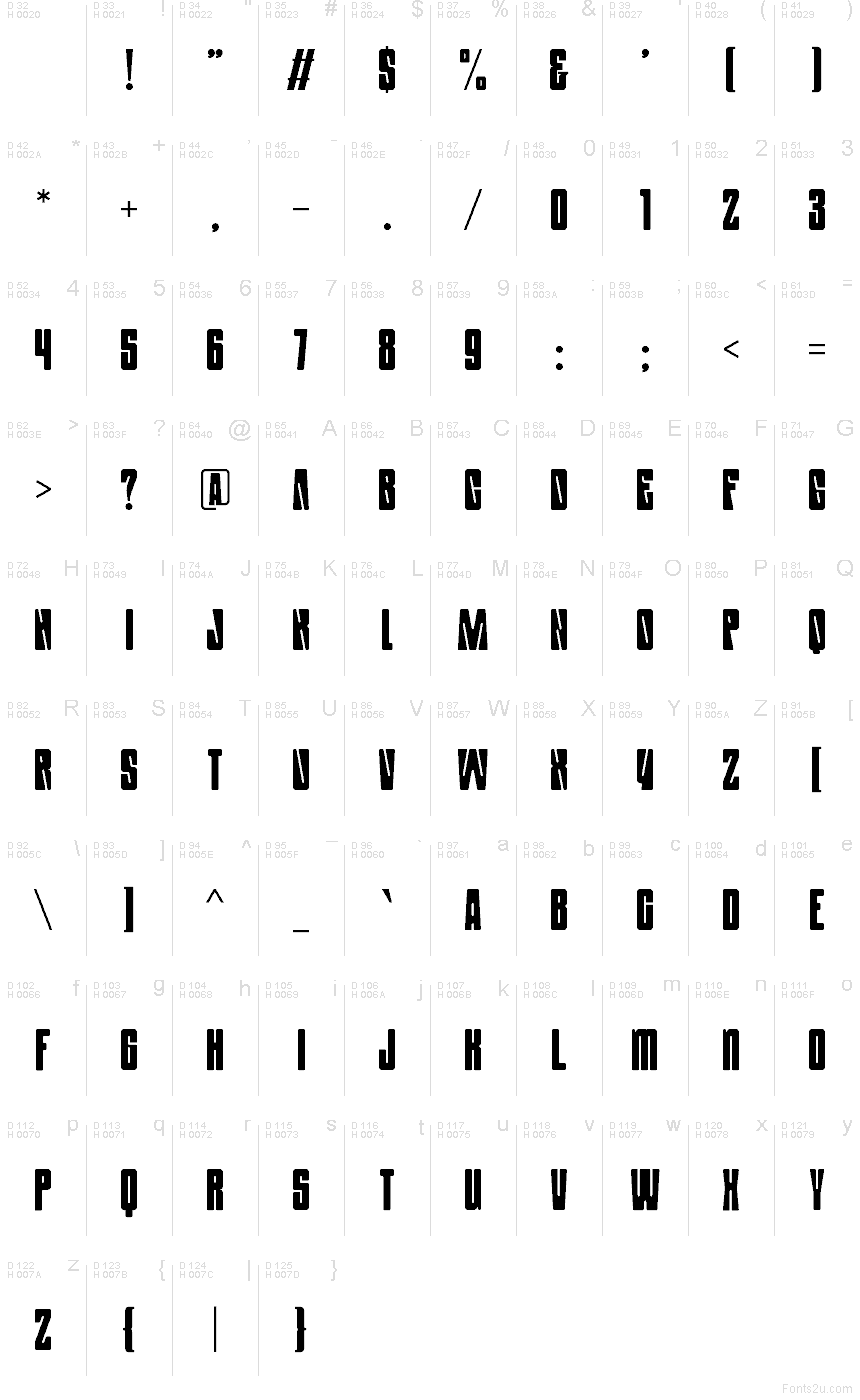
Palgea Regular
Palgea font by ErmediaStudio is a free decorative display typeface that feels like it’s been carved from a single, inky block. Heavy, tightly spaced letters rise tall and narrow, with soft curves and unexpected cutouts that give each word a bold, almost sculptural silhouette. The result is a chunky, high-impact look that still feels smooth to the touch—more like poured rubber or thick paint than cold geometry.
This free font thrives anywhere you need a headline to shout without shouting: gig posters, retro-themed branding, bold packaging, editorial titles, social media graphics, and statement logos. Using Palgea at large sizes lets the dense forms and quirky gaps really sing; pair it with a simple, light-weight sans serif for smaller text to keep your layouts readable and let Palgea stay the star.